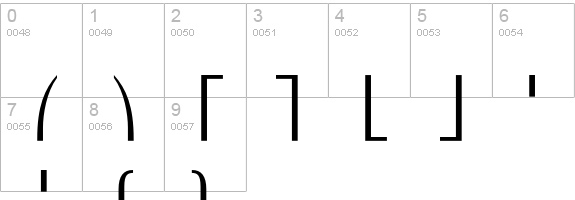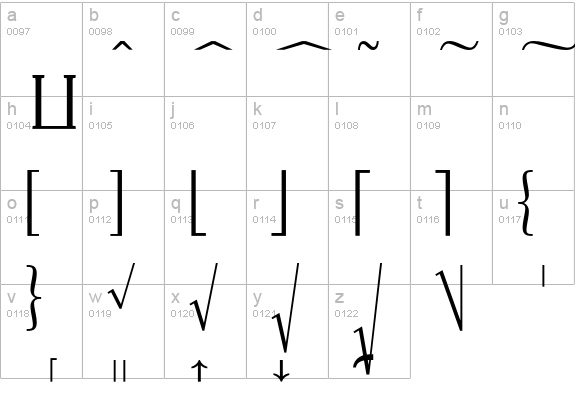
Lucida Math Extension Font Details
Lucida Math Extension font is a versatile and elegant typeface designed for mathematical and technical documents. With its clear and legible design, Lucida Math Extension is perfect for displaying complex mathematical equations and symbols with precision and clarity. This font features extended characters and symbols essential for mathematical expressions, making it a valuable tool for researchers, academics, and professionals in the fields of mathematics, physics, and engineering. What sets Lucida Math Extension font apart is that it is available for free download at FontsMarket.com. This means that anyone can access this high-quality font without any cost, making it a valuable resource for students, educators, and professionals alike. Whether you are working on a research paper, a presentation, or a technical report, Lucida Math Extension font will ensure that your mathematical content is presented with professionalism and accuracy. Enhance your documents with the sophisticated and refined look of Lucida Math Extension font, available for free at FontsMarket.com.